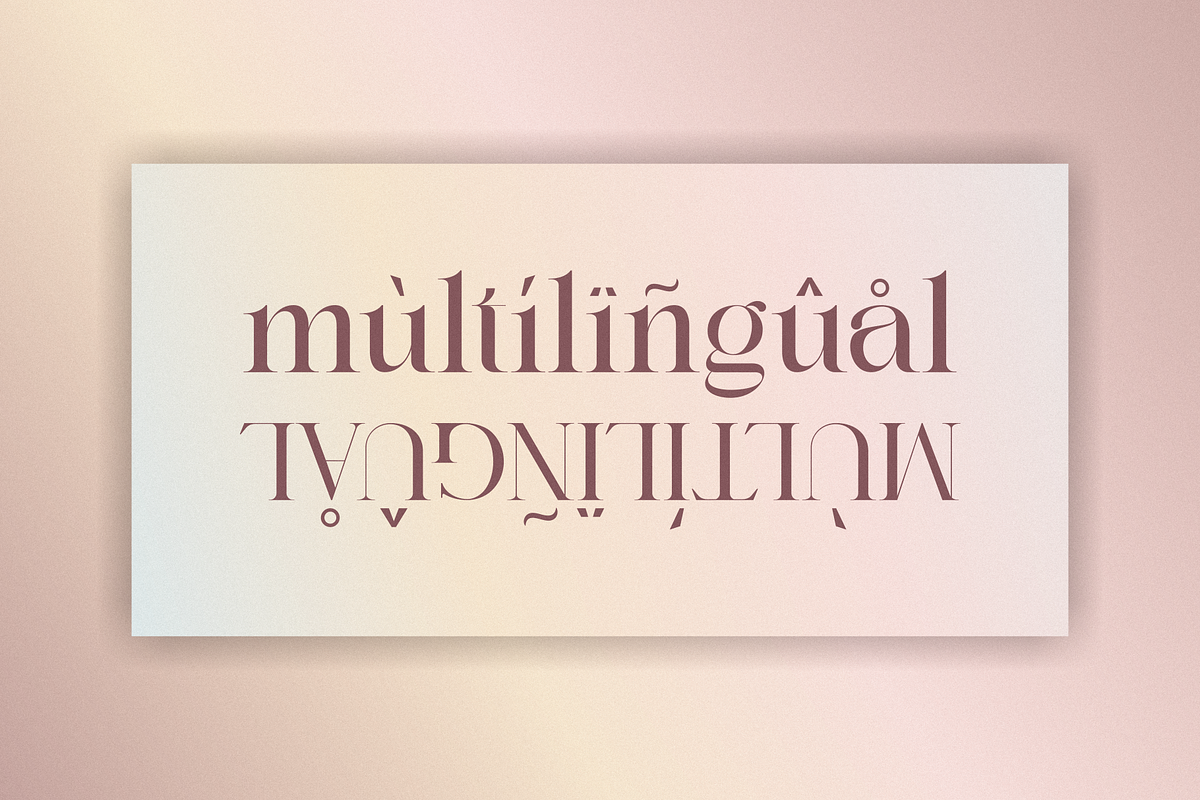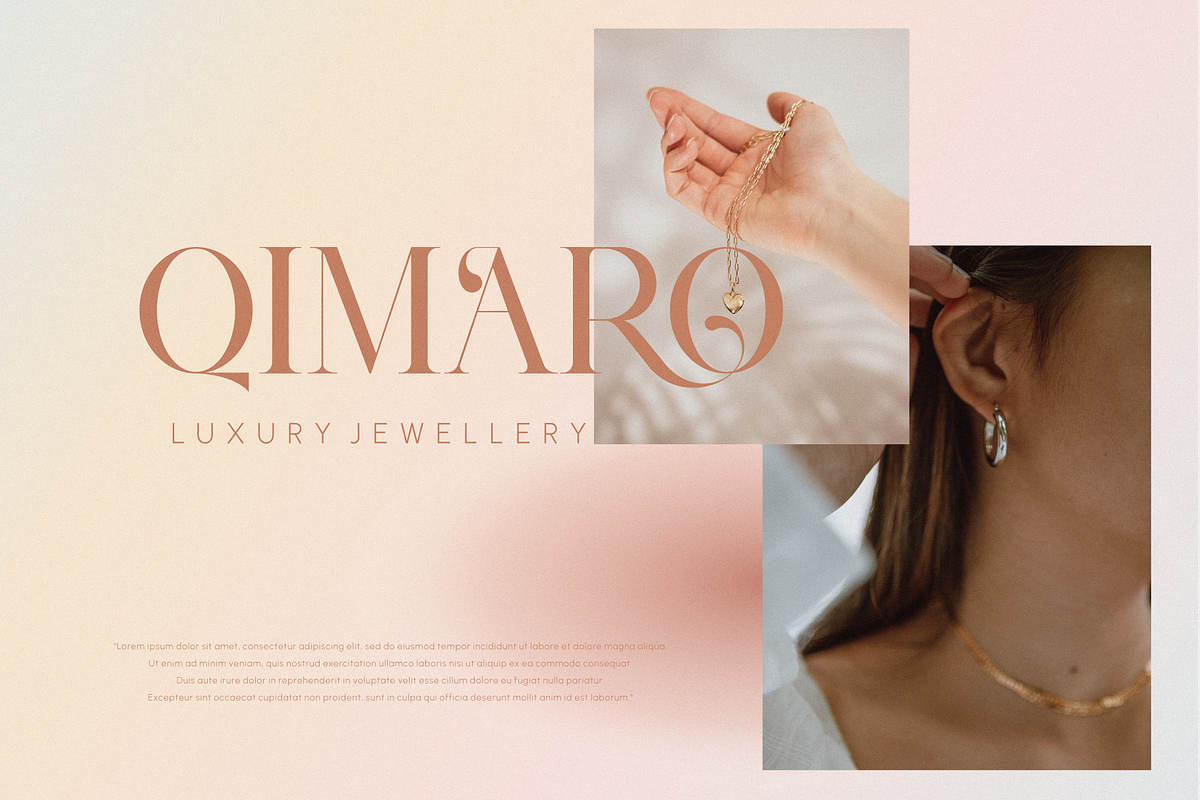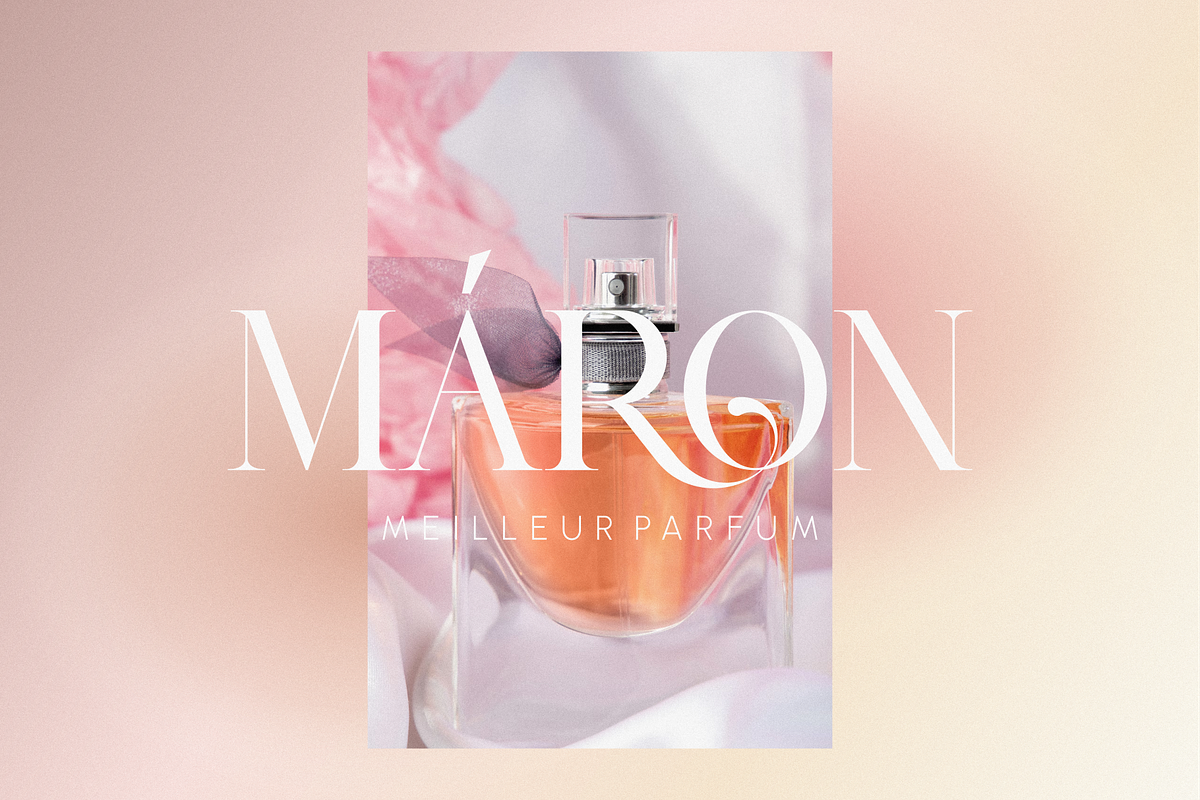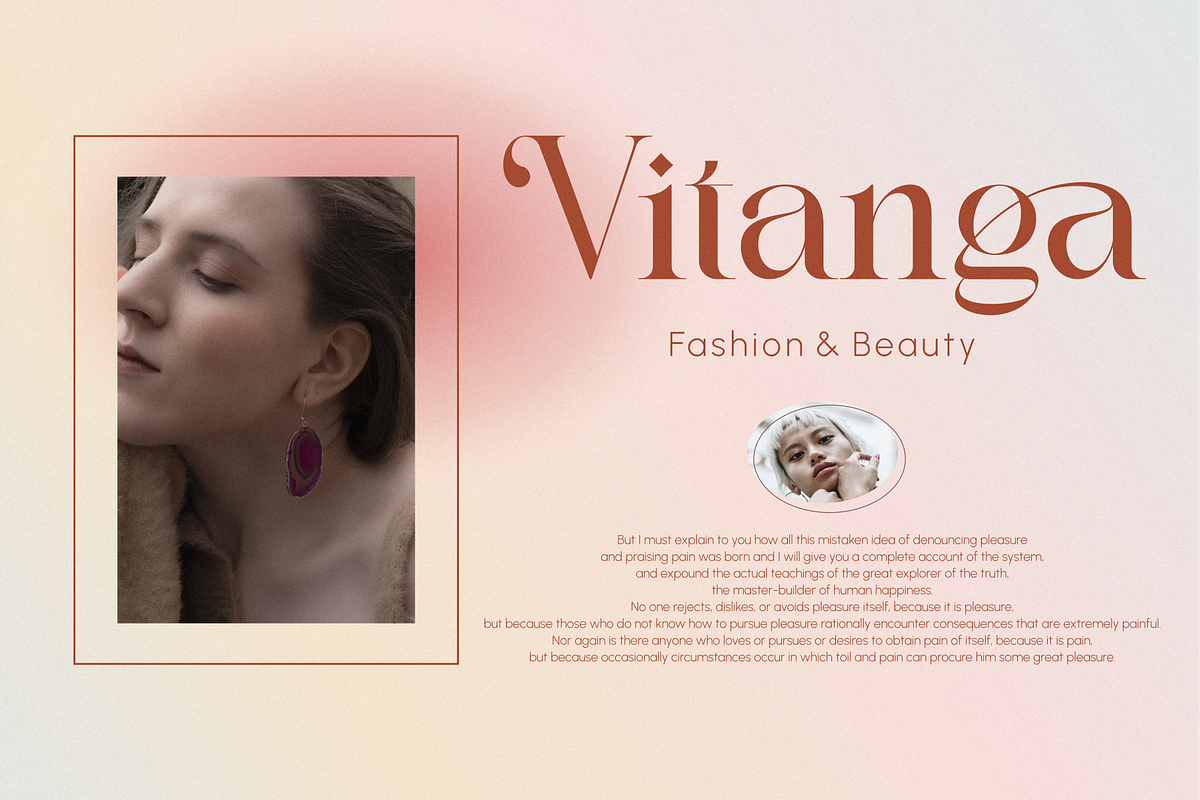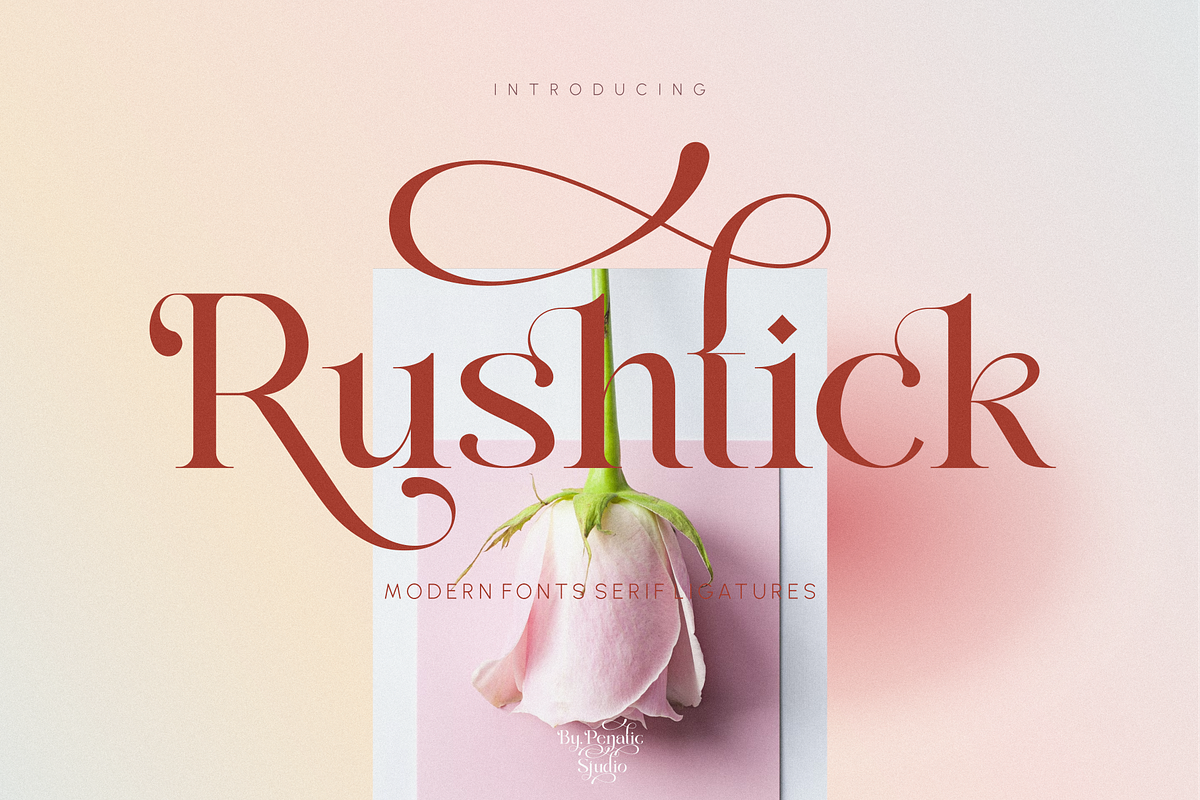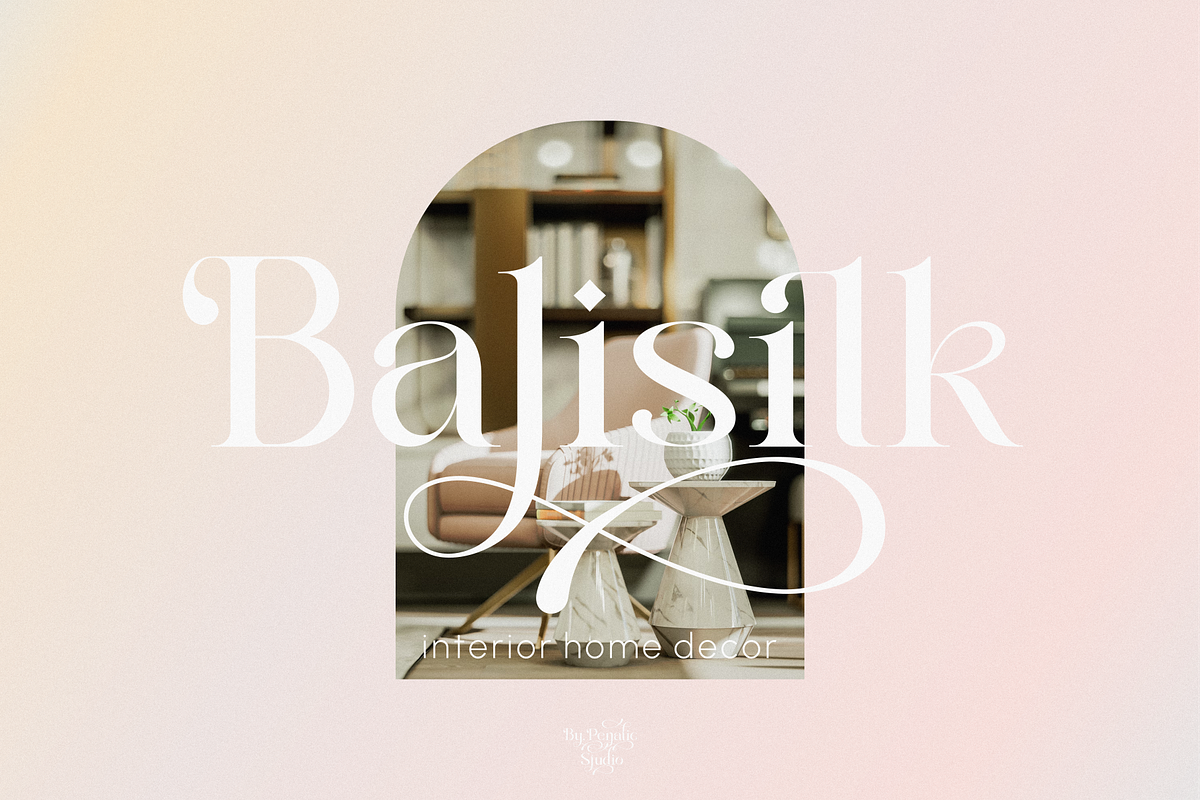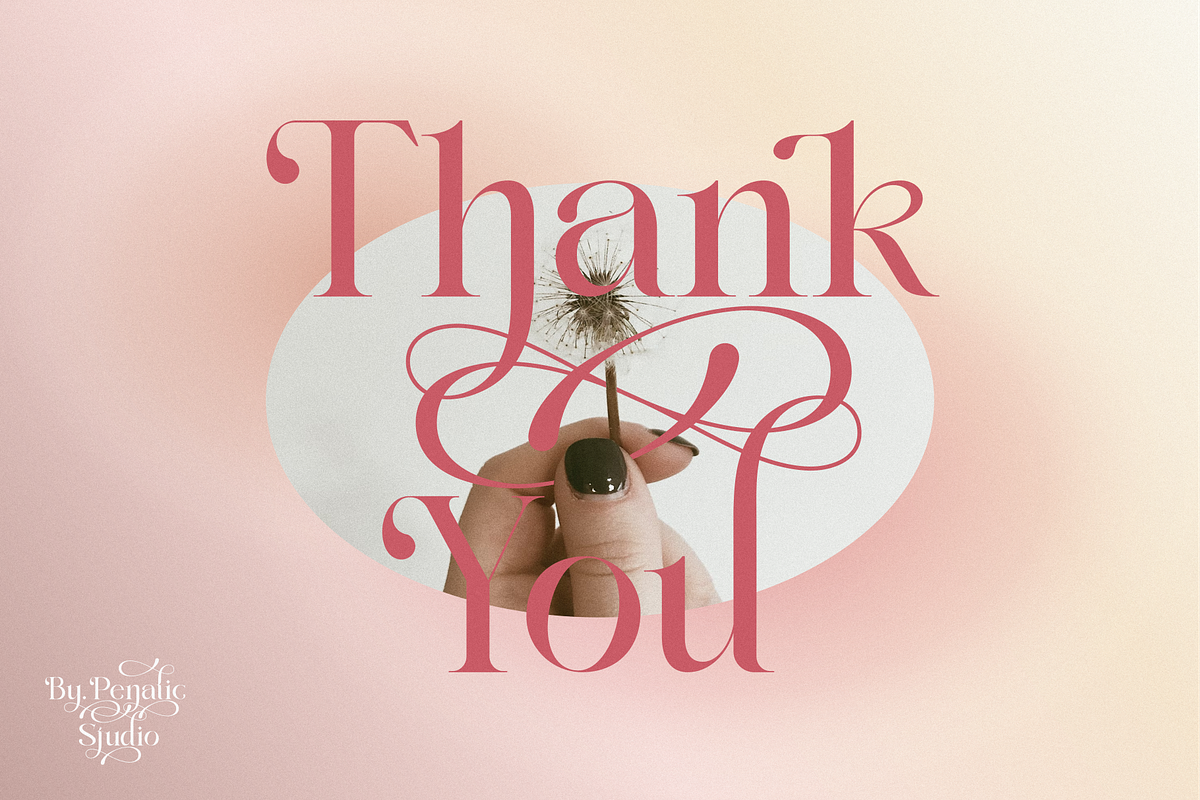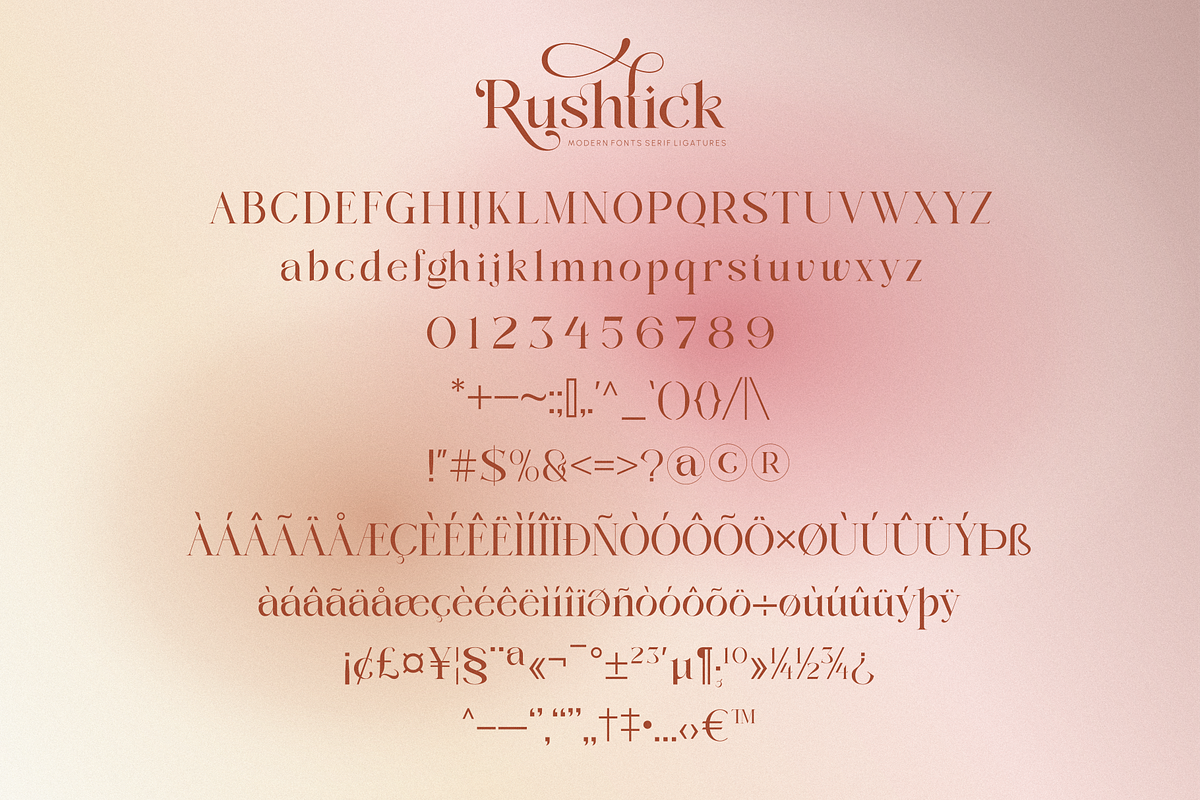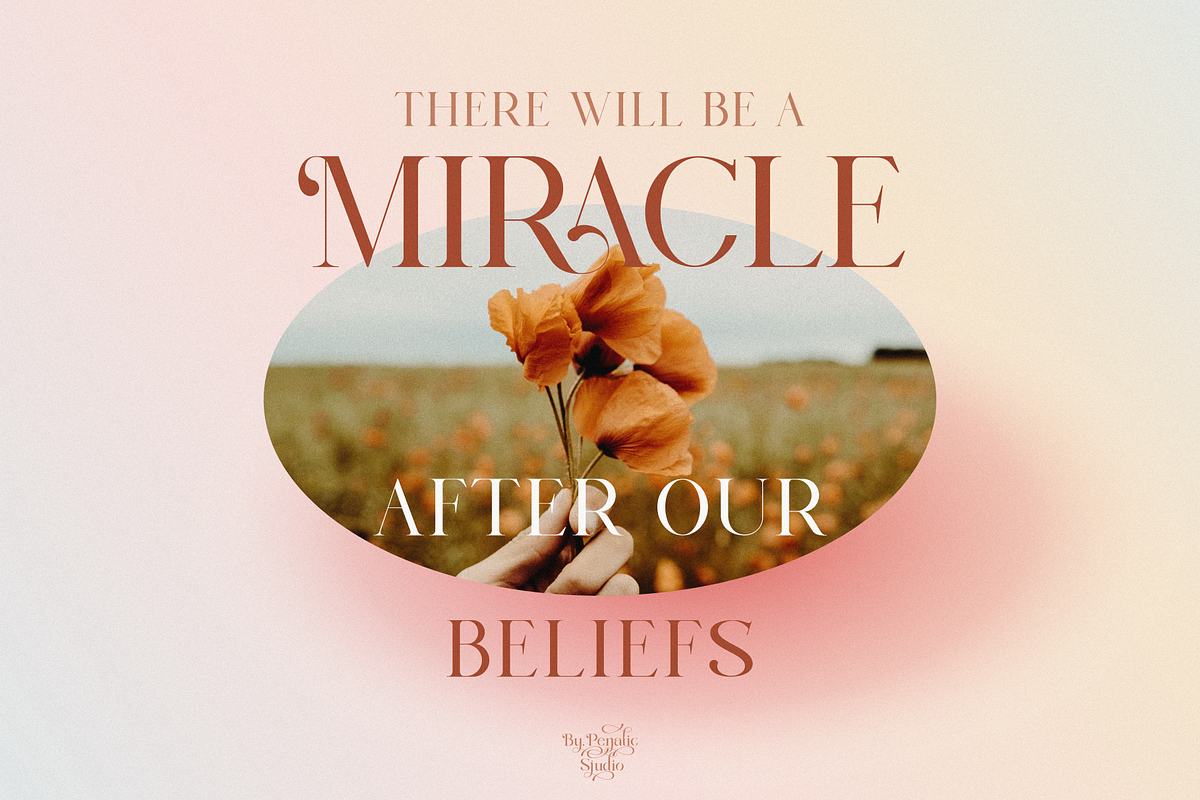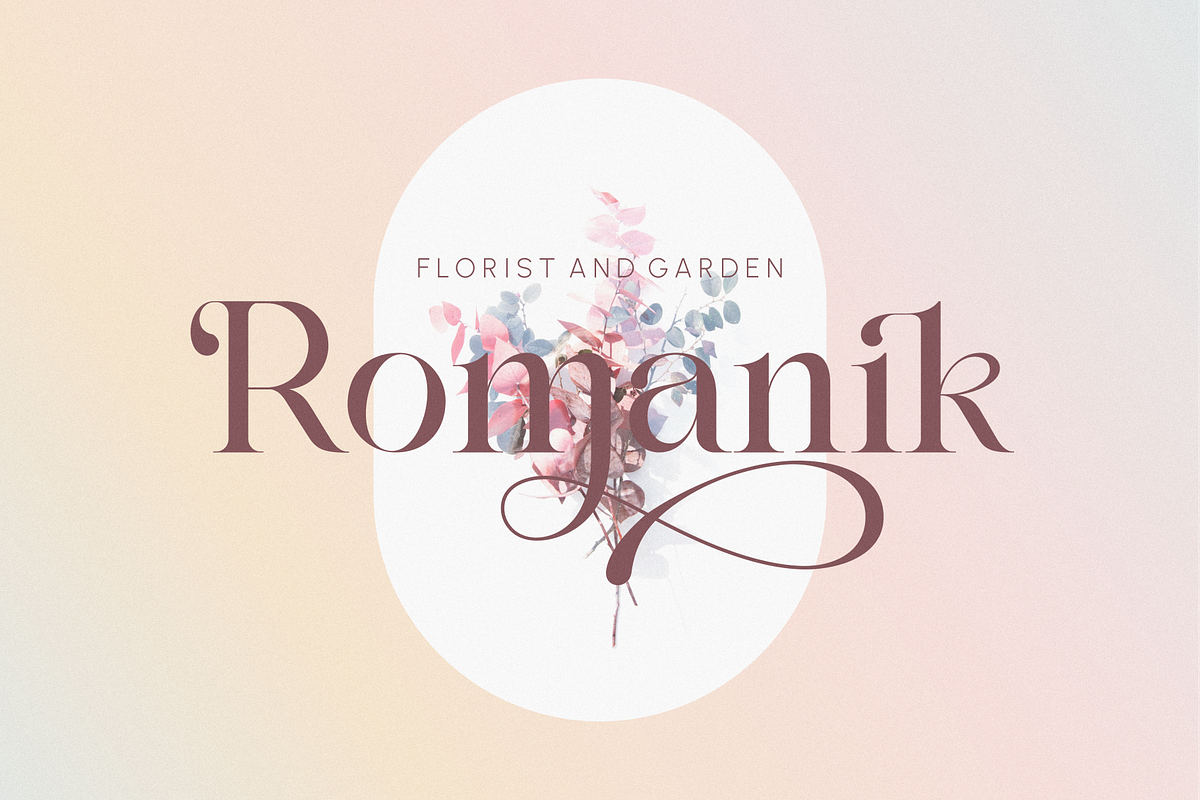
Rushtick
Introducing our new product. Rushtick _ Modern serif ligature font. Very finely designed modern font. with lots of binders and alternative letters that will make your project look more elegant and beautiful. Great for branding projects, logos, wedding designs, social media posts, advertising, product packaging, product design, labels, photography, watermarks, invitations, stationery and more.